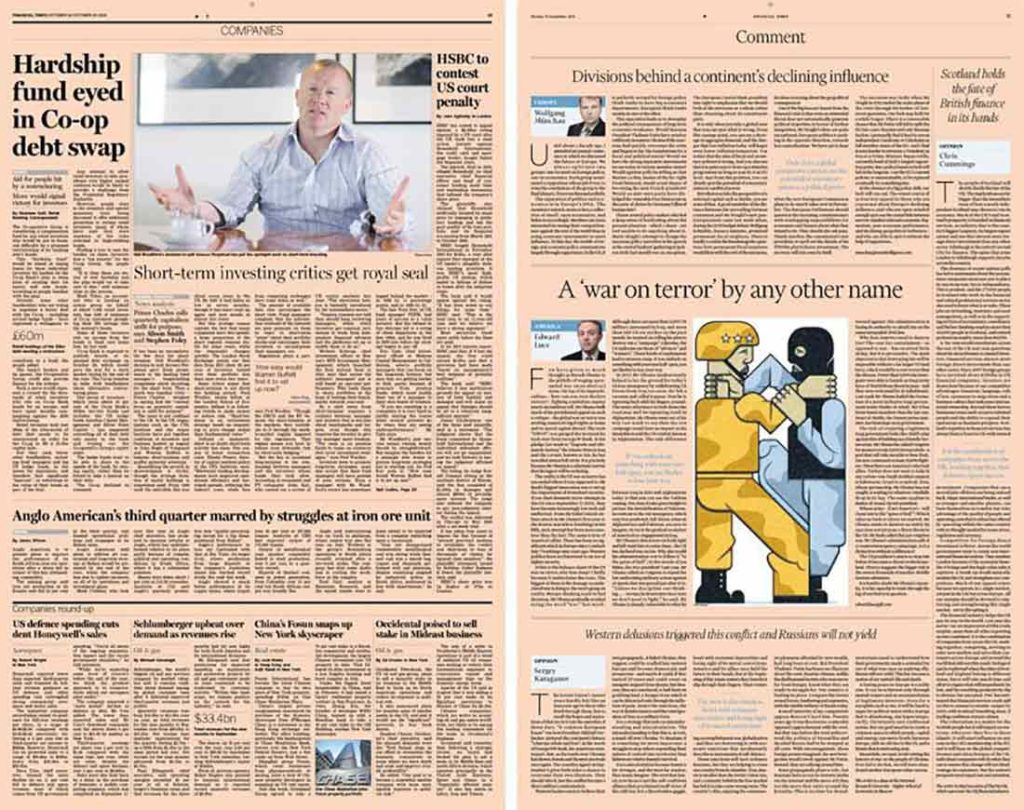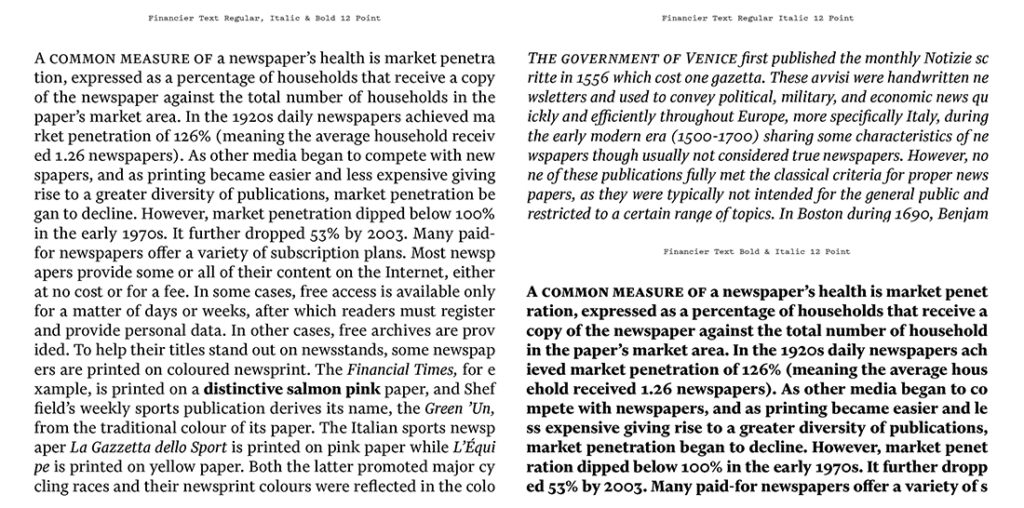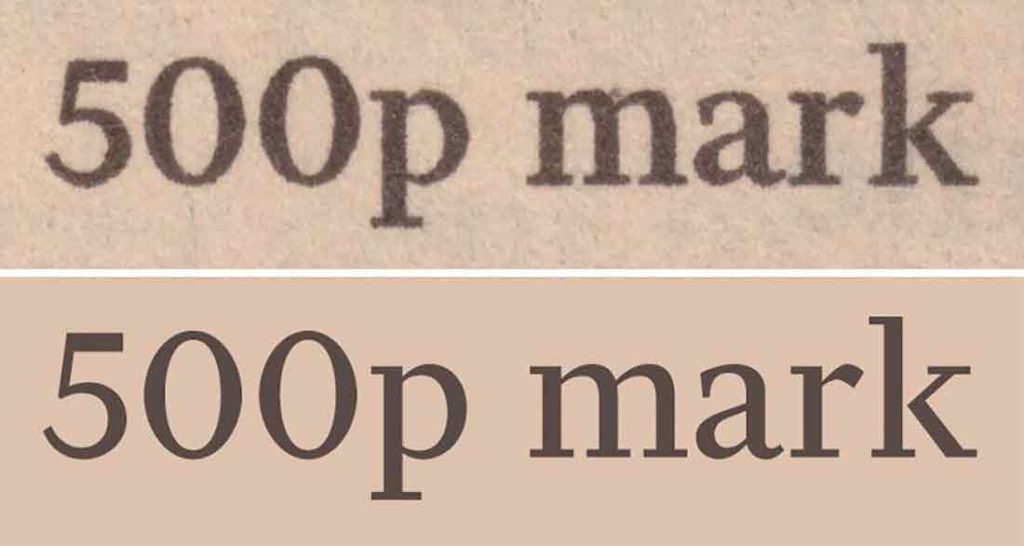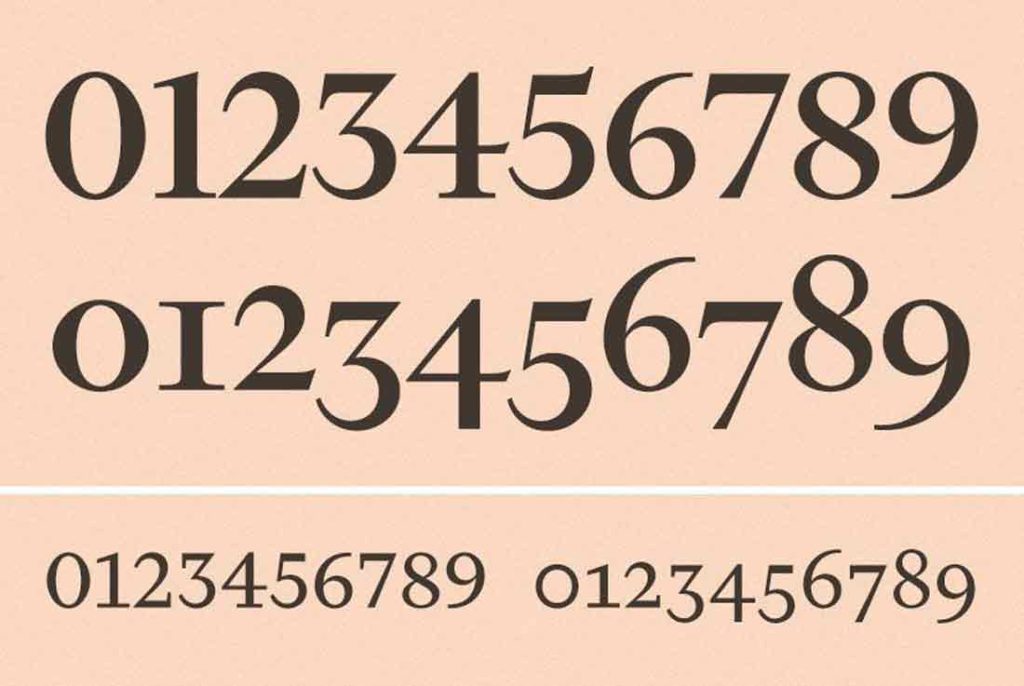
Name: Financier
Designer: Kris Sowersby
Foundry: Klim
Release Date: 2014, completion date for the Financial Times redesign; 2016, retail release date
Back story: A healthy respect for type history coupled with a deep understanding of functionality went into this bespoke font for the Financial Times. The design brief was to produce a typeface for a sharper, more modern newspaper design that would show off the FT’s strengths in reporting, analysis, and visual journalism. A single comment made by design director Mark Leeds, who collaborated on the project along with Sowersby and Kevin Wilson, proved key to the typeface’s development. Leeds thought that—just maybe—exploring an alphabet of characters without ball terminals (traditional in newspaper fonts), might lead to an unexpected yet effective solution.
Once this clicked, Sowersby says, “I started scratching around for good models to fit the bill: something with decent proportions for newspaper text and headlines—without ball terminals—that could support a range of weights and would work well on digital screens. As a bonus, something with British heritage would be ideal.” Inspired by Eric Gill’s work, he quickly found a direction and roughed out both text and display cuts over a couple of days. Broadly speaking, Financier Text follows aesthetic cues from Solus and Joanna, and Financier Display nods to Perpetua.
Why’s it called Financier? These designers know their audience. The literal definition of a financier is “one who deals with finance and investment on a large scale.” Bingo.
What are its distinguishing characteristics? Financier’s beautiful mix of inspirations and sources are expressed in subtle details, such as a lower x-height combined with slightly tallish ascenders, moving the typeface away from typical newspaper proportions towards something more sleek and refined. For maximum legibility in the harsh newspaper printing environment, Financier relies upon deep, sharp joins to control the spread of ink rather than on typical ink traps built into the characters. Since the FT (obviously) features numerals everywhere, they were seen from the outset as a vital part of the type design and evolved into sensitive updates of Gill’s distinctive flat-topped 3, lively 5, three-quarter-height old-style 2, and dramatically sweeping 6 and 9. “This is the first time I’ve made a typeface family with visually compatible rather than consistent text and display styles,” says Sowersby. “They feel like they belong together, rather than merely looking similar.” Nice!
What should I use it for? Financier is crafted to be so specific to news usage that it would be hard to use it gracefully in other content categories. That said, it’s a no-brainer for news-based publications across all media platforms—from the get-go, the letterforms were drawn to shine in both print and digital environments.
Who’s it friends with? It seems only logical to pair it with Gill Sans Nova, the 2015 update of Gill Sans from Monotype’s George Ryan.